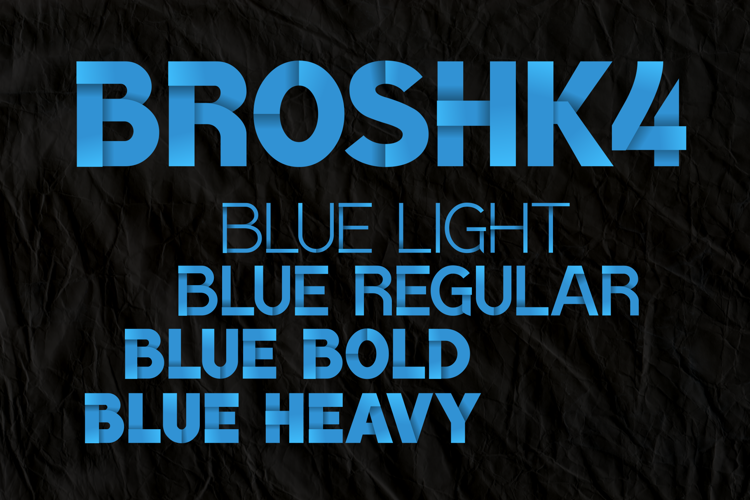
BroshK4-BlueBold Font
Decorative, color font BroshK4-BlueBold in OpentypeSVG .ttf and .woff format.
Look at Copper, Gold, Nickel and Pearl color variants: